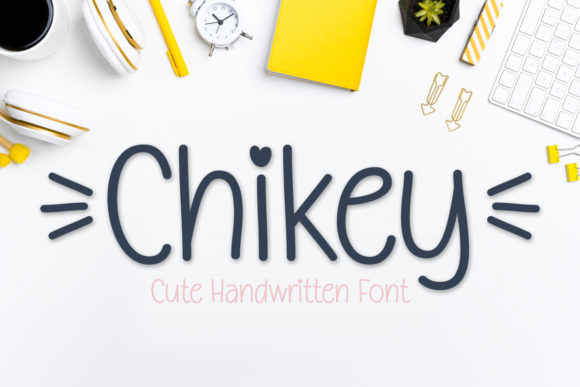
Dive into the world of Chikey Font, a captivating script font family that exudes charm and playfulness. Designed by the talented Jasm (7NTypes), Chikey stands out from the crowd with its charming handwritten style, making it the perfect choice for adding a touch of whimsy to your creative projects.
Step into a world of boundless creativity with Chikey Font. This remarkable script font embodies the essence of love, inviting you to pour your heart into every word and embrace the beauty of self-expression. Whether you're crafting heartfelt messages, designing enchanting invitations, or personalizing your digital space, Chikey Font is your trusted companion, ready to infuse your creations with a dash of magic.
Unleash the versatility of Chikey Font and explore a spectrum of design possibilities. With its effortless adaptability, this font thrives in both formal and informal settings, effortlessly complementing your diverse projects. From elegant wedding invitations to playful social media posts, Chikey Font gracefully adapts to your vision, adding a touch of enchantment to every endeavor.
Dive into the depths of Chikey Font's charm and discover a symphony of emotions. This font captivates with its endearing handwritten style, evoking feelings of warmth, nostalgia, and pure delight. Let Chikey Font transport you to a world of imagination and creativity, where your words dance with grace and your designs come alive with personality.
Embrace the simplicity and beauty of Chikey Font, a font that speaks to the heart. Its uncomplicated design allows your message to shine through, while its playful curves and delicate strokes add a touch of whimsy that captivates the senses. Experience the joy of using Chikey Font and elevate your creations to new heights, leaving an unforgettable impression on all who encounter your work.